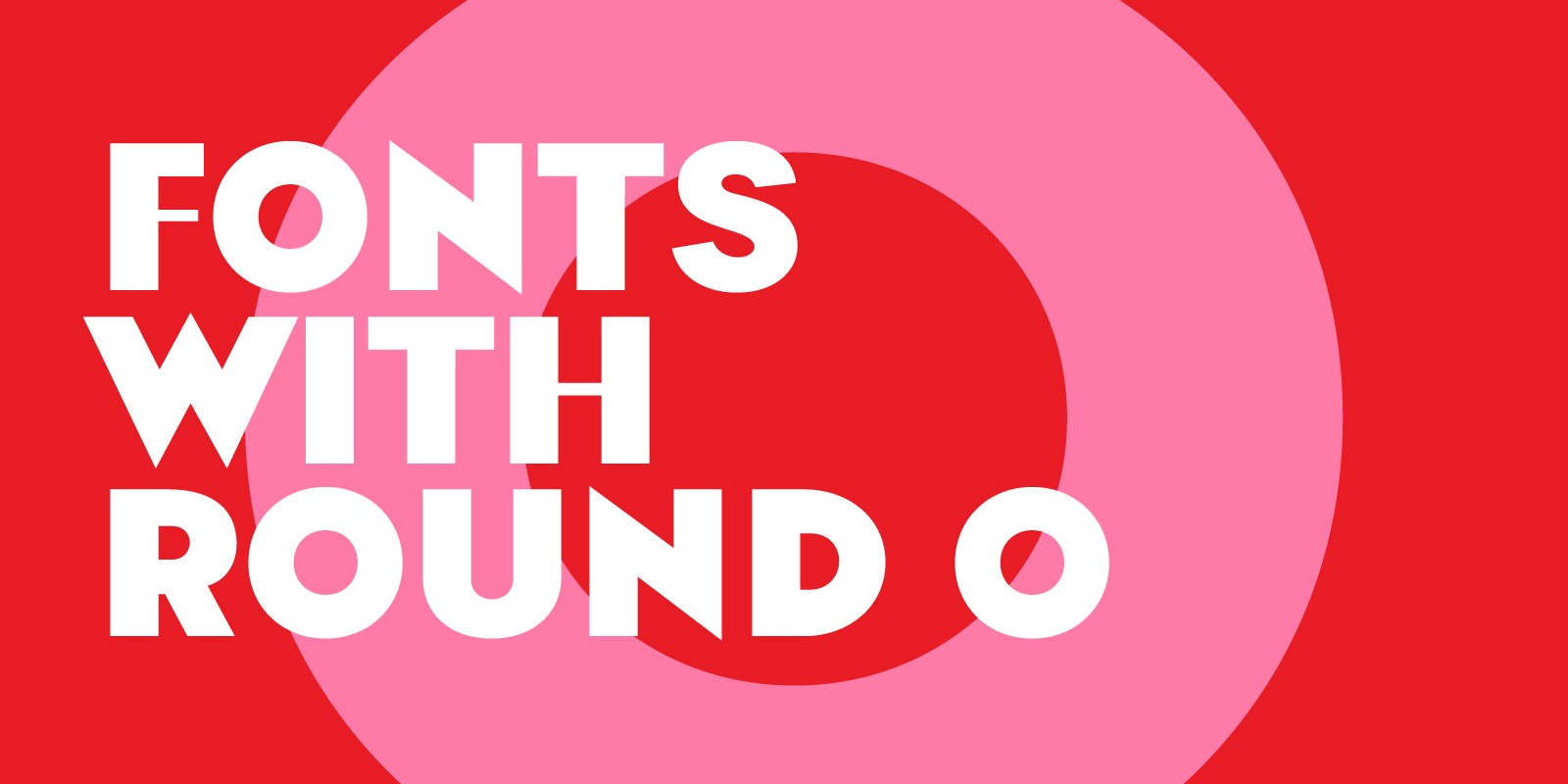
Fonts With Perfectly Round O Shapes (Modern, Geometric, Clean)
Fonts with a perfectly round “O” have a clean, geometric look that feels modern, confident, and designed. That simple circular shape can make wordmarks feel more balanced, more minimal, and more “brand system ready,” especially for tech, design, wellness, and contemporary lifestyle projects.
In this list, you’ll find modern fonts where the “O” stays intentionally round (or close to perfectly circular), plus notes on when each font works best for logos, headlines, and brand typography.
Goji – Friendly Rounded Font With a Clean Round “O”
Goji is a rounded geometric typeface with a friendly tone and a clean circular structure in letters like O and o. It’s a great option when you want a modern, approachable look without going overly playful. Bonus: Goji also includes stylistic alternates, so you can push the personality further for logos and short display text.
Bauhaus Bau is a modular geometric font whose construction leans heavily on circular forms—so the “O” naturally reads as round, stable, and intentional. It’s ideal for logos, packaging, and bold headline treatments where you want a retro-modern Bauhaus vibe with a clean geometry underneath.
Scal is a modern take on a classic geometric sans direction (think: clean and structured, with a contemporary edge). Its round shapes—especially the O—help branding feel precise and “designed,” while the sharper terminals on select letters add a bit of character so it doesn’t look generic.
Bauhaus Geo is a constructed geometric font for a modular, modern look. The geometry keeps round letters like O feeling consistent and intentional, which is especially useful in wordmarks. Geo also includes alternate letters, so you can fine-tune the final logo lockup without switching fonts.
Auria Sans keeps things clean and minimal while adding personality through rounded ink traps that feel wavy and airy (without becoming decorative). It’s a strong choice for brands that want clarity and a sharply modern edge—especially in beauty, wellness, fashion, and jewelry.
Rail is a modern high-contrast sans-serif with a thin connector line detail that makes the design feel engineered and distinctive. Round letters like O stay clean and geometric, which helps logos look intentional while still feeling fun and a bit quirky.
Bool is playful and geometric, designed to feel friendly with an edge. Its rounded forms keep wordmarks approachable, while stylistic alternates help you customize a logo so it feels less “default.” Great for upbeat brands, products, and modern packaging.
Swav is a constructed wavy font designed for logo and title use. Even though it has a futuristic movement, the underlying geometry stays clean—so round letters like O still read as intentionally shaped rather than messy. Best for brands that want modern energy with a controlled system.
Kayon is a geometric typeface rooted in construction, architecture, and automation. The engineered structure keeps round letters clean, while the long, squarish ink traps add a technical voice that fits tech, science, and architecture branding.